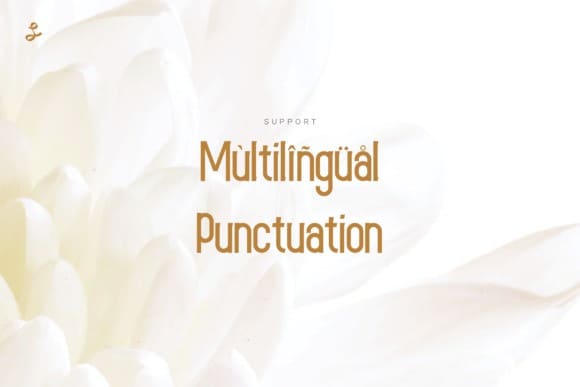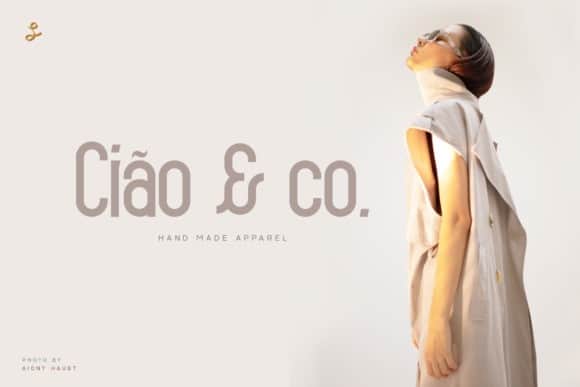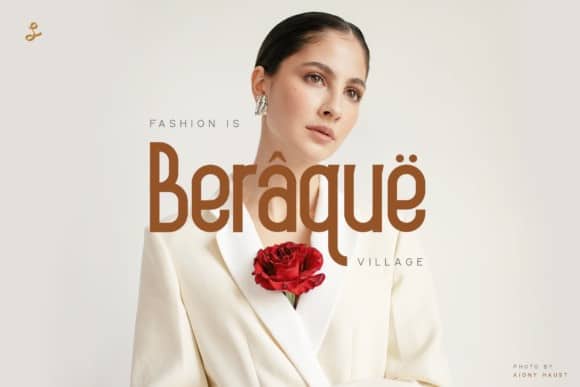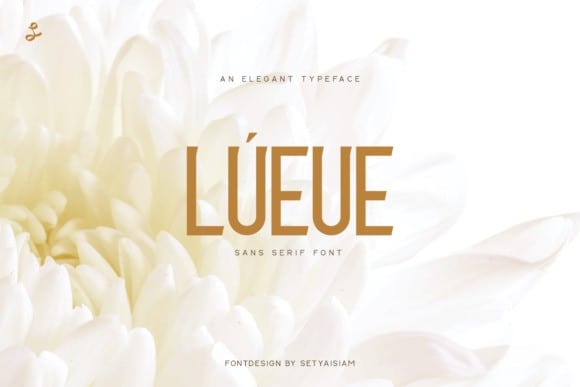
Lueue Sans Serif Font
Lueue Sans Serif Font is cosy, simple and readable, and looks amazing in both big and small scales. It’s great for social media, headlines, large-format print, editorial, branding, posters, fashion designs and websites. Made from font designer named setyaisiam. It can easily be matched to an incredibly large set of projects, so add it to your creative ideas and notice how it makes them stand out!